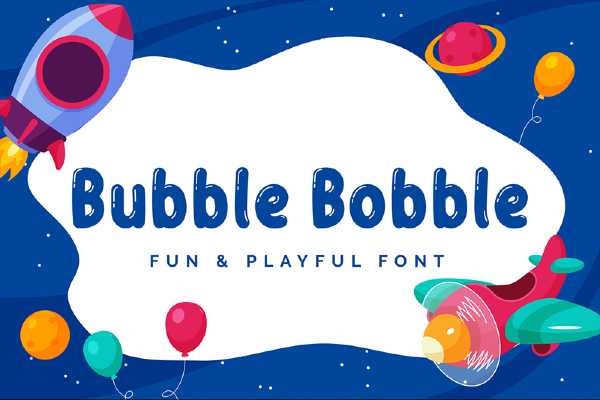
Bubbly-themed designs and logos are easy to create with our free online bubble font generator tool. Whether it be the ones that derive from a bottle of champagne, blow out of Hubba Bubba from your mouth, or relax in the bathtub with - everyone loves bubbles! There is just something so relaxing and comforting about creating them, consuming them and feeling them on your skin. If you are a designer looking to capture the bubbly spirit in the form of a font, then our bubble letter generator is the perfect tool for you. Check out the range of fonts available from this free tool and apply them to your creative artwork for social media posts, web design, product packaging or posters.